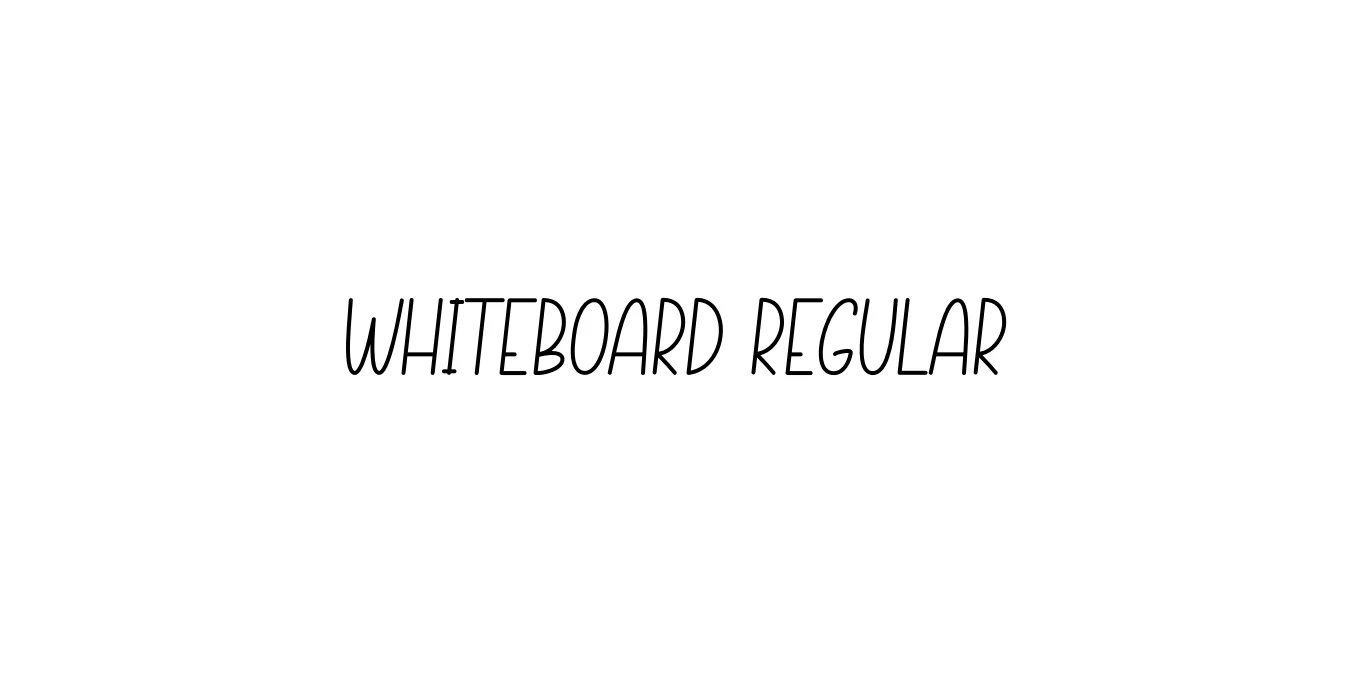
Whiteboard Regular
Designed by Studio K
| Category | Handwritten |
| Designer | Studio K |
Whiteboard Regular is a casual, hand-lettered typeface specifically crafted to replicate the aesthetic of dry-erase markers on a glossy surface. It features fluid, organic strokes and slightly irregular letterforms that capture the essence of spontaneous human handwriting. This font is widely recognized for its ability to transform digital presentations into engaging, interactive-feeling sessions, making it an essential tool for educators and creative professionals alike.
The history of Whiteboard Regular is rooted in the digital classroom revolution, where there was a growing need for fonts that felt less like rigid computer code and more like a personal touch. By maintaining a high level of legibility while embracing the sketchy imperfections of a marker, this typeface has become a go-to choice for instructional design, visual storytelling, and collaborative software interfaces that prioritize a friendly, accessible user experience.
Whiteboard Regular Best Uses
Perfect for creating digital lesson plans and interactive whiteboard slides.
Ideal for informal pitch decks and creative brainstorming visualizations.
Great for organic, friendly posts that require a personal, human touch.
Suitable for 'explainer' style videos and handwritten annotations.